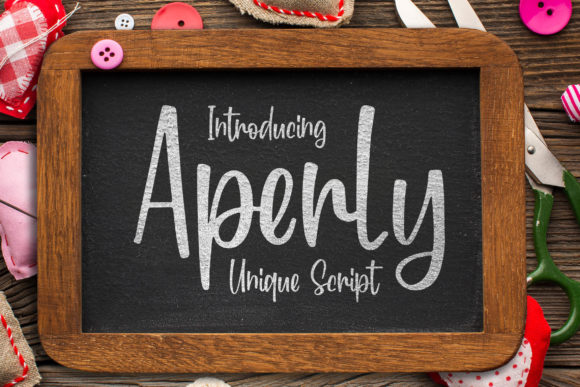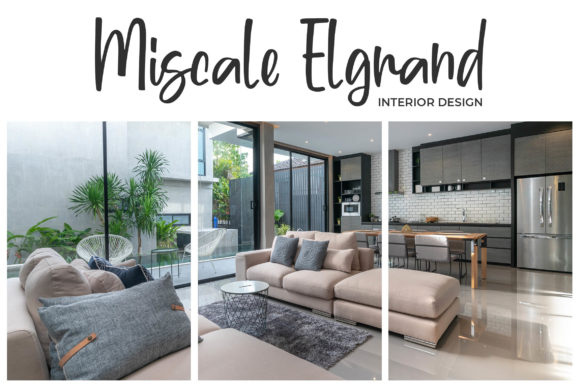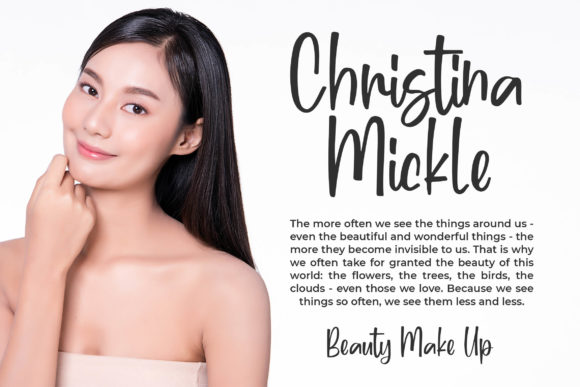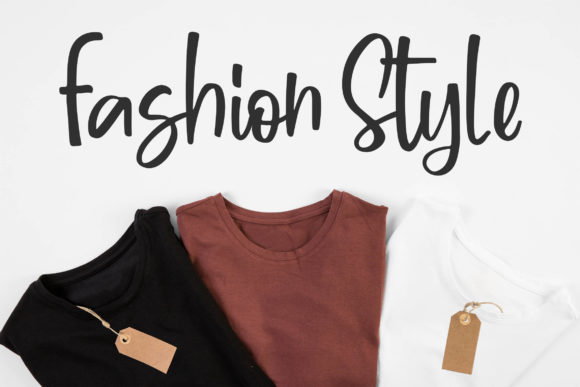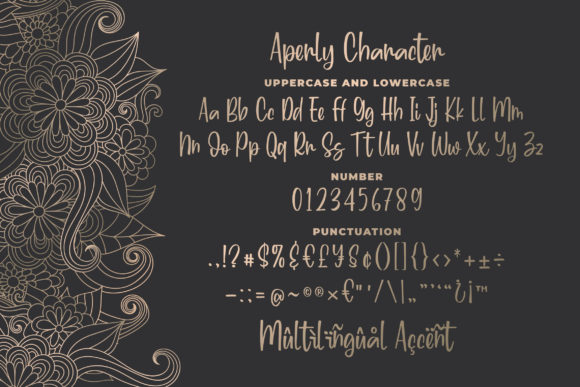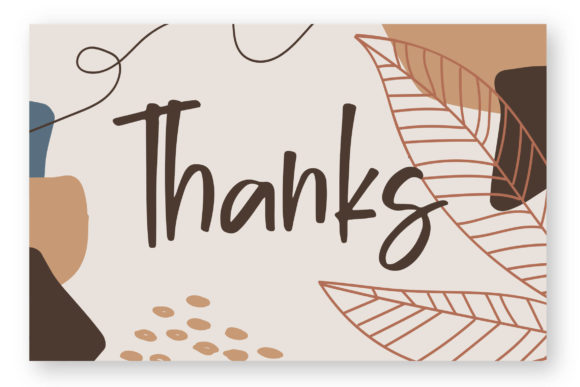
HomeScript FontsAperly Font Script Fonts Aperly Font FacebookXPinterestWhatsApp Aperly Font Poster 2 Aperly Font Poster 3 Aperly Font Poster 4 Aperly Font Poster 5 Aperly Font Poster 6 About Aperly Font Aperly is a unique and exciting playful script. Think fashion, think Aperly! DOWNLOAD ON CREATIVE FABRICAThis font is sold and delivered by Creative Fabrica. Font Canyon may earn a commission if you buy through this link. People also explored Sharen Font Black Friday Font Alega Font Creative Writing Font Lofthouse Font Sans Marino Font Fox Timeless 5 Font Styles Font My Love & Love Story Font Fanny 467 0 TagsAperly Font Previous articleThifa FontNext articleCuriosity Font LEAVE A REPLY Cancel reply Comment: Please enter your comment! Name:* Please enter your name here Email:* You have entered an incorrect email address! Please enter your email address here Website: Save my name, email, and website in this browser for the next time I comment. Personal Use Free Peachy Rose Personal Use Free Read more about this font Good Mood Personal Use Free Read more about this font Geracella Personal Use Free Read more about this font Playground Clip Art Personal Use Free Read more about this font BLOG Transform Your Website: Elevate Your Typography with 7 Best Web Font Generators Are you ready to transform your website's typography from ordinary to extraordinary? Great! Today, we're diving into the world of web font generators, which... Elegant Wedding Invitation Fonts – Handwritten & Script Fonts Using Fonts in Digital Marketing: Tips to Strengthen Your Brand Identity Modern Sans-Serif Fonts That Brands Love in 2025